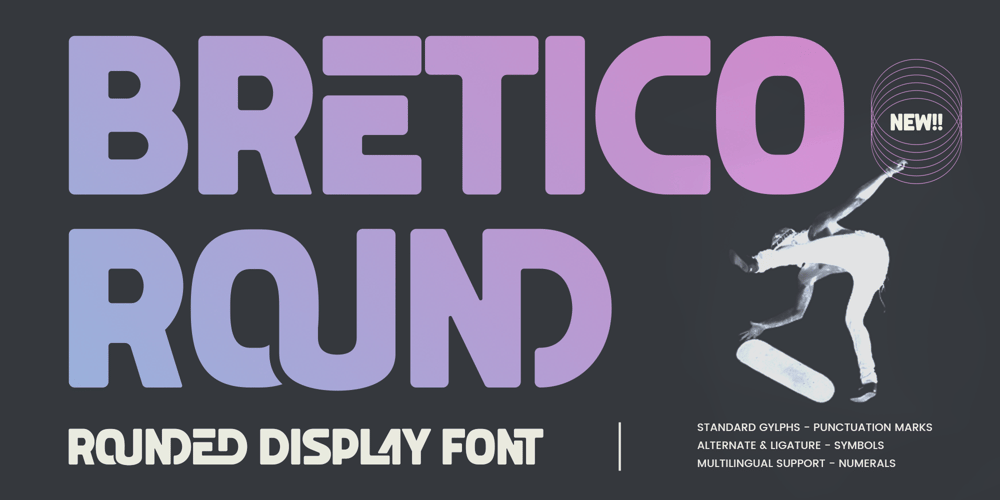
Bretico Round
Bretico Round font
Bretico Round Font Family was designed by Guntur Septyan and published by GuseType. Bretico Round contains 1 styles and family package options. Bretico Round is a thick display font with rounded in every corner that make look more playful and futuristic at the same time, this font provide any features like Standard glyphs, ligature and alternative glyphs, multiple language support and symbols. This font can be use in various project like posters, magazines, brochures, logos and many more. Bretico Round can make you word more stylized.Thank you for coming.I hope you enjoy it